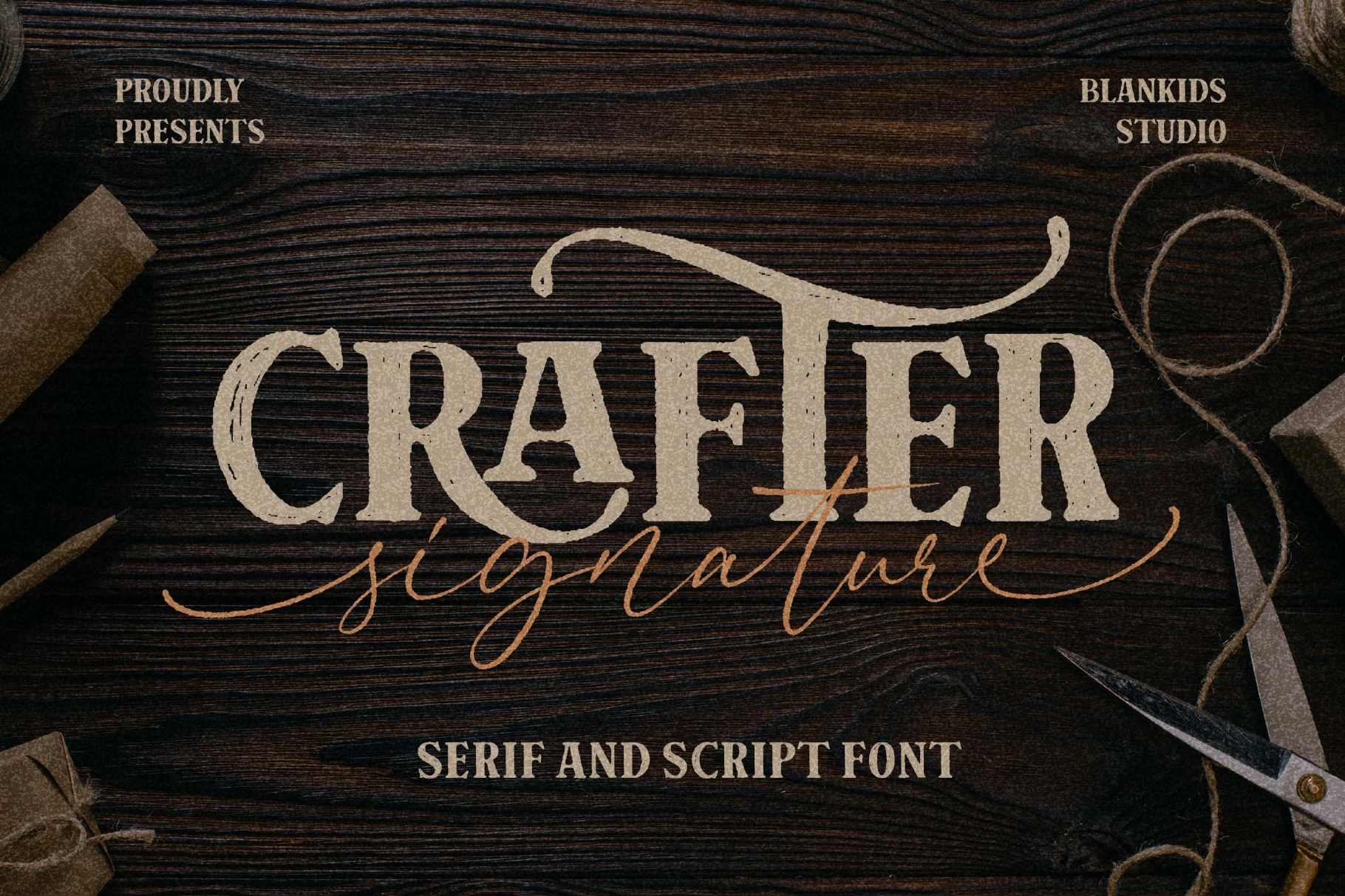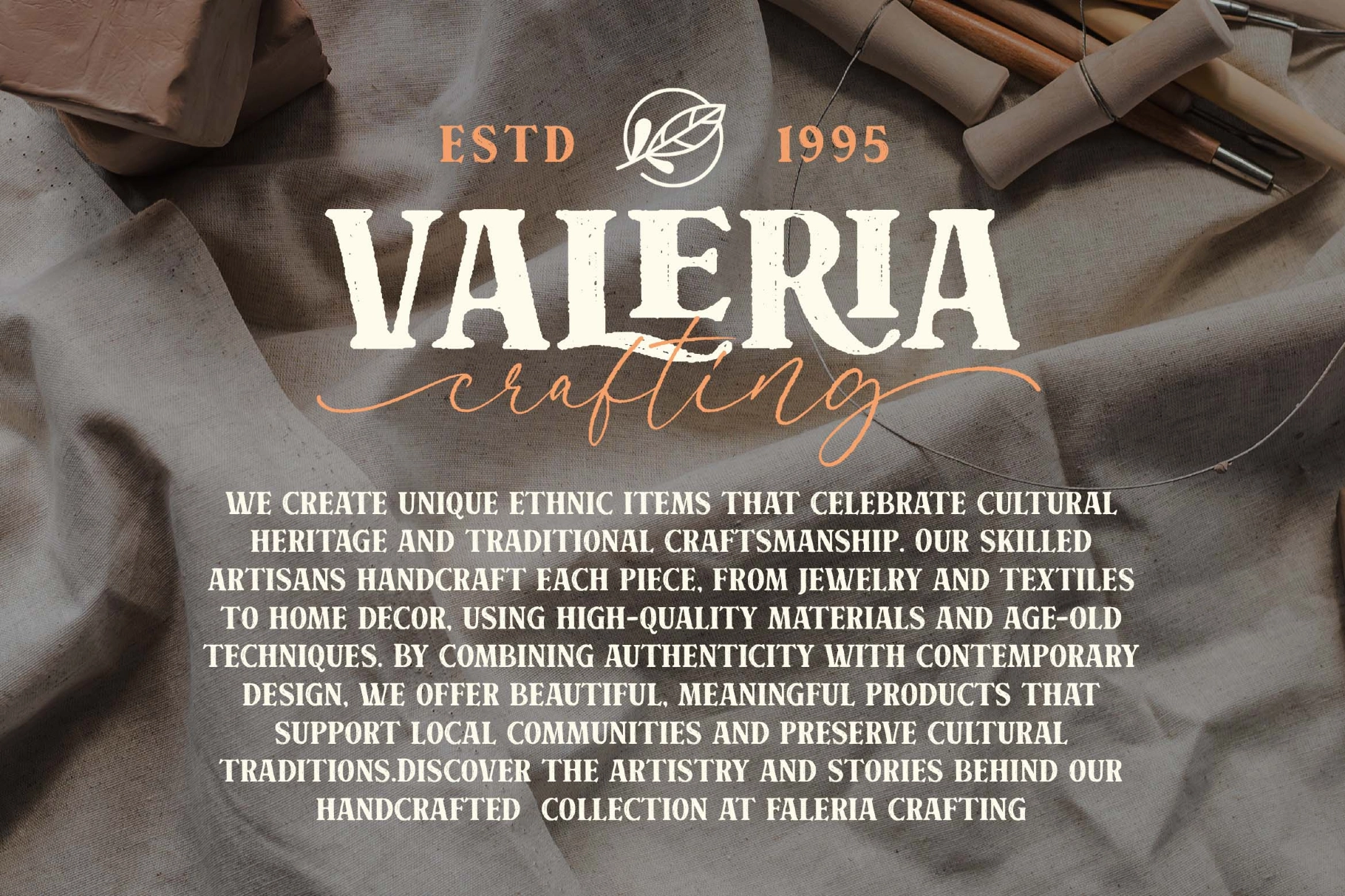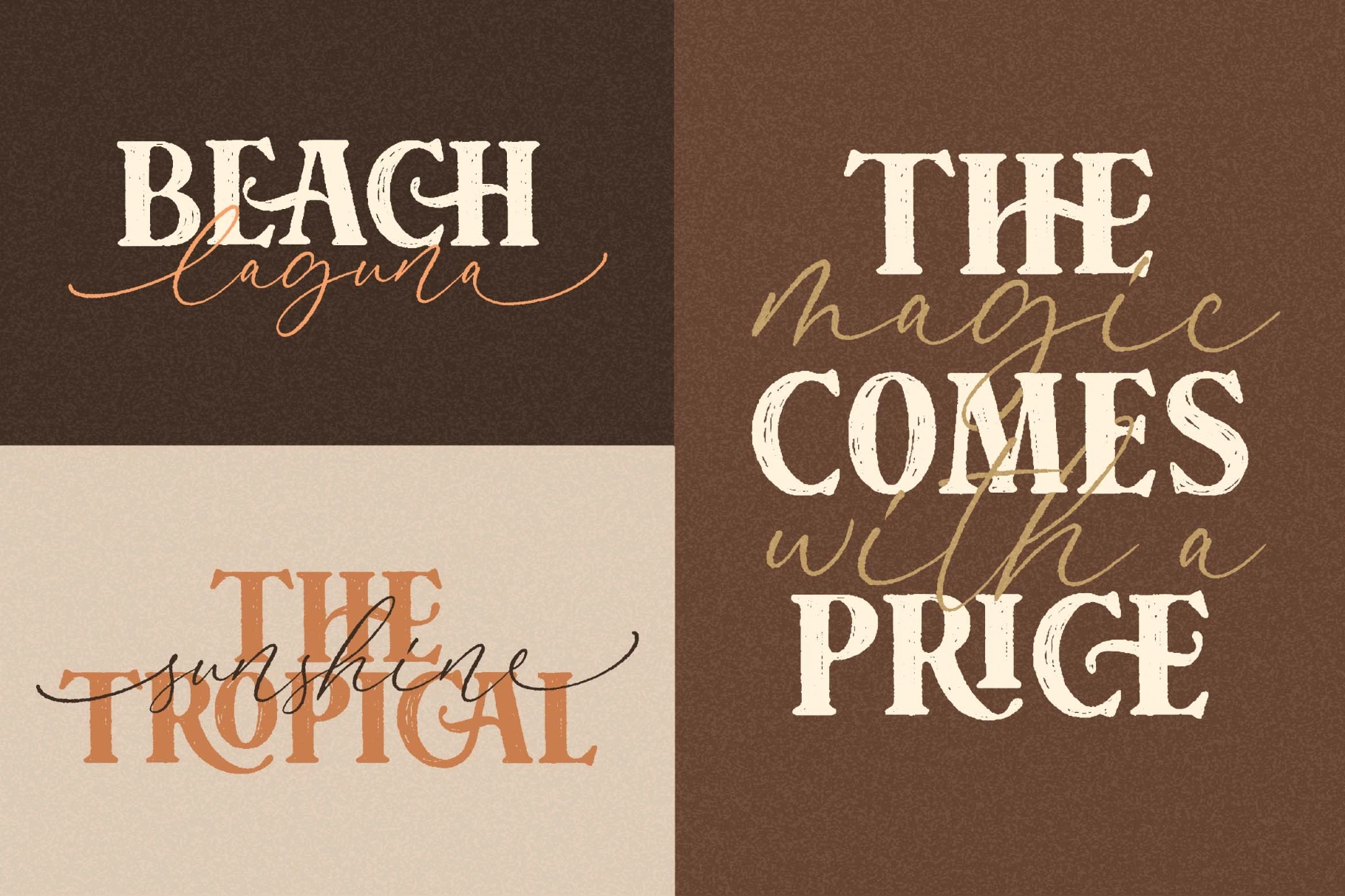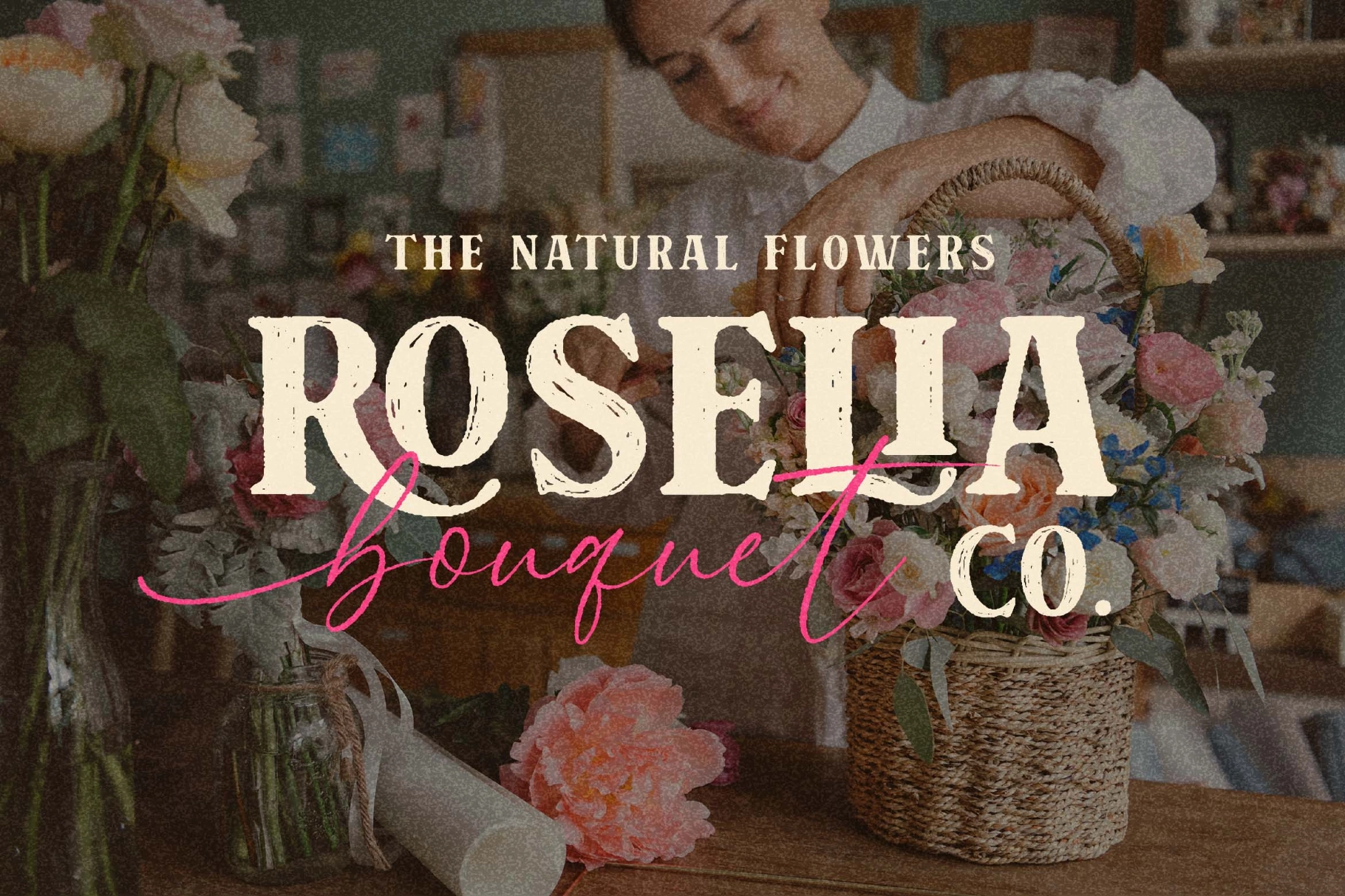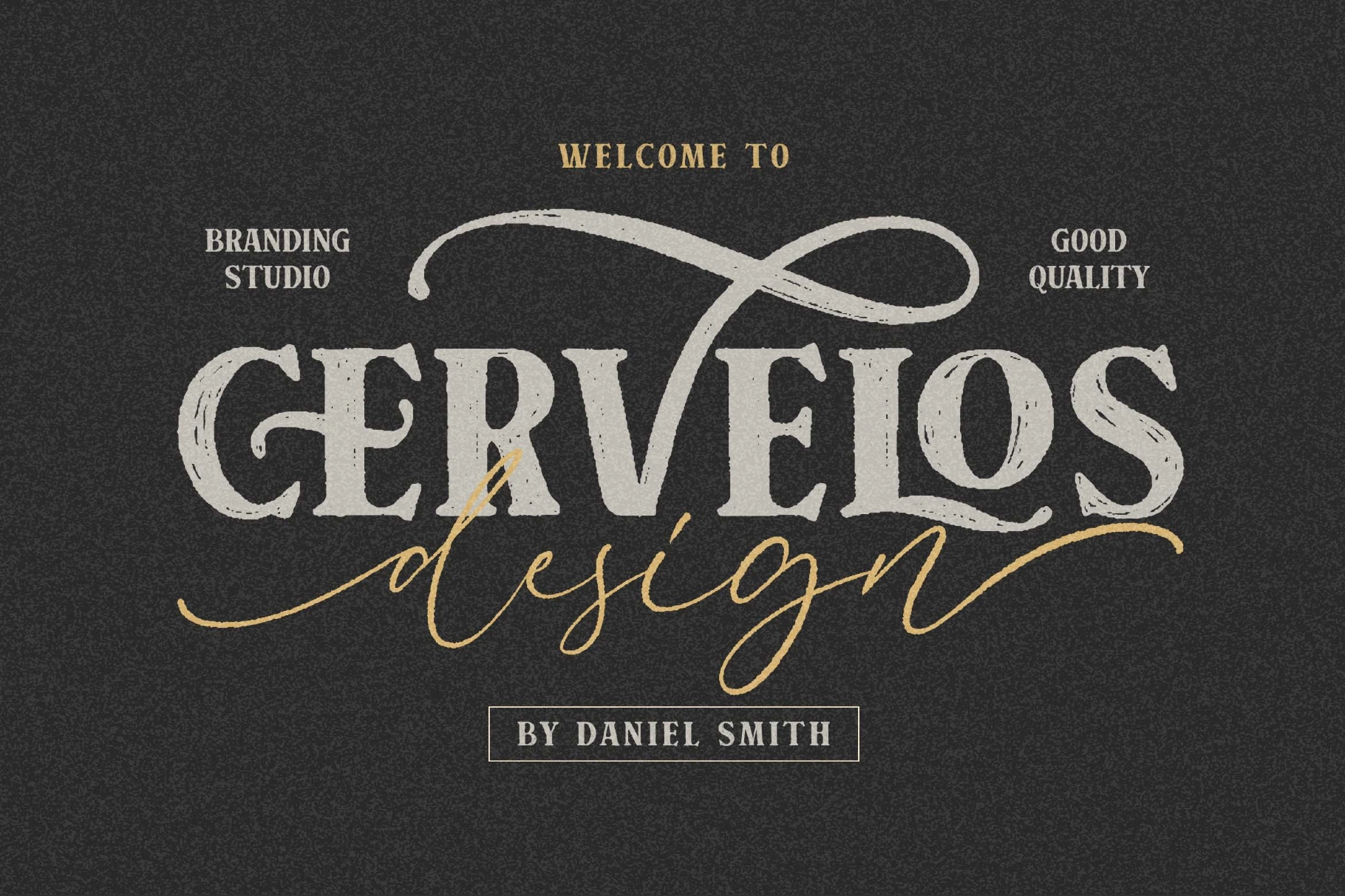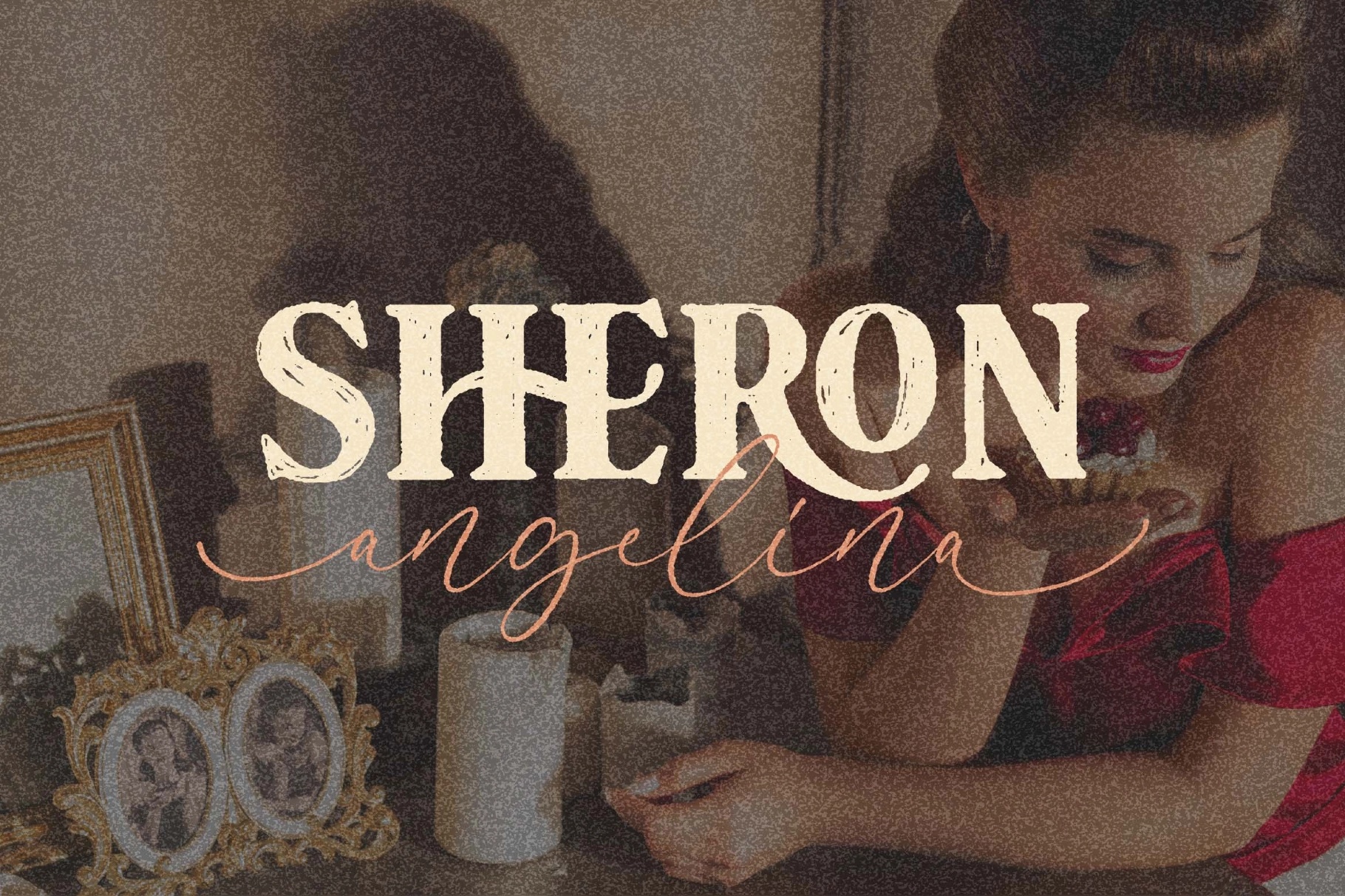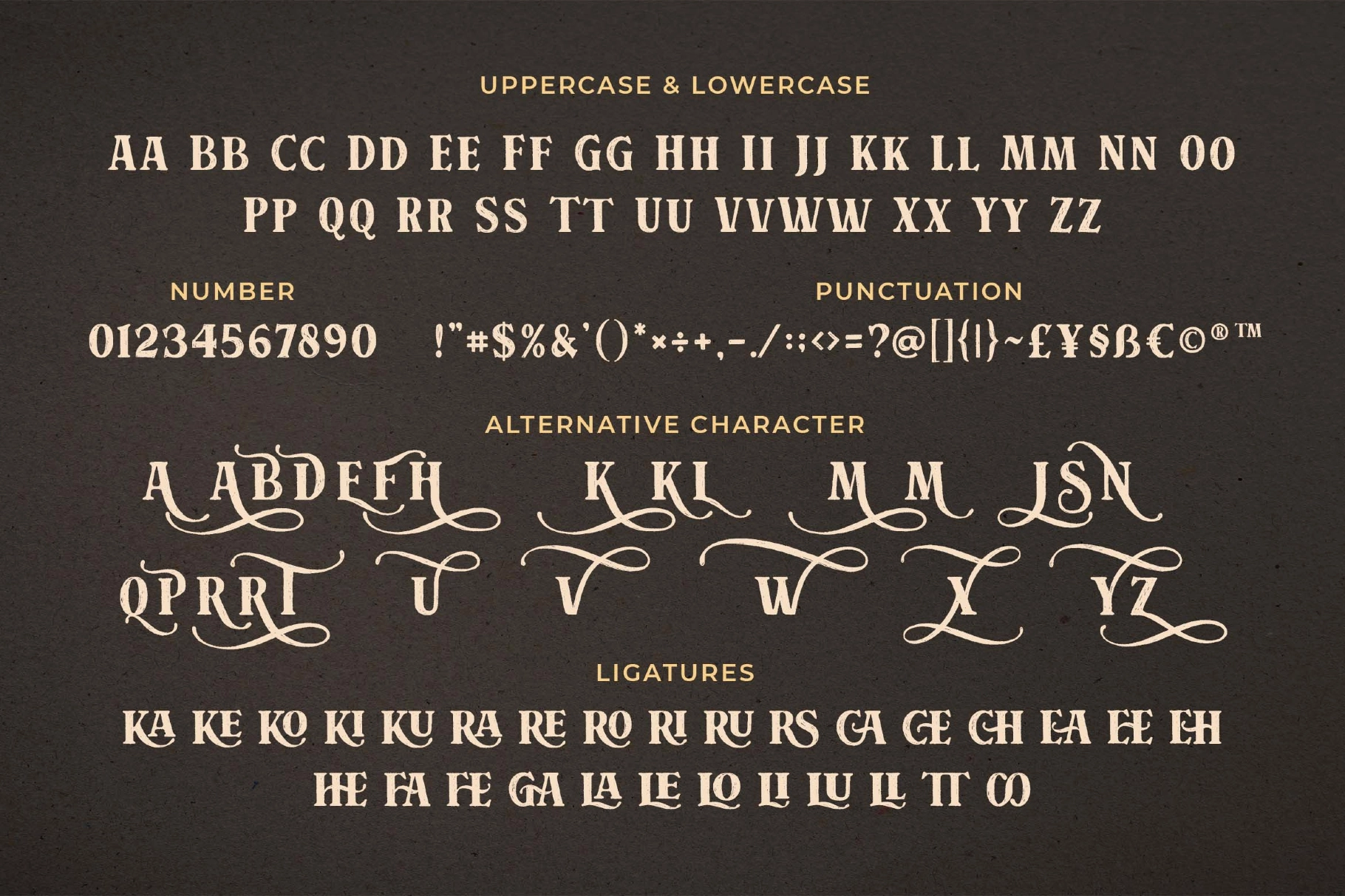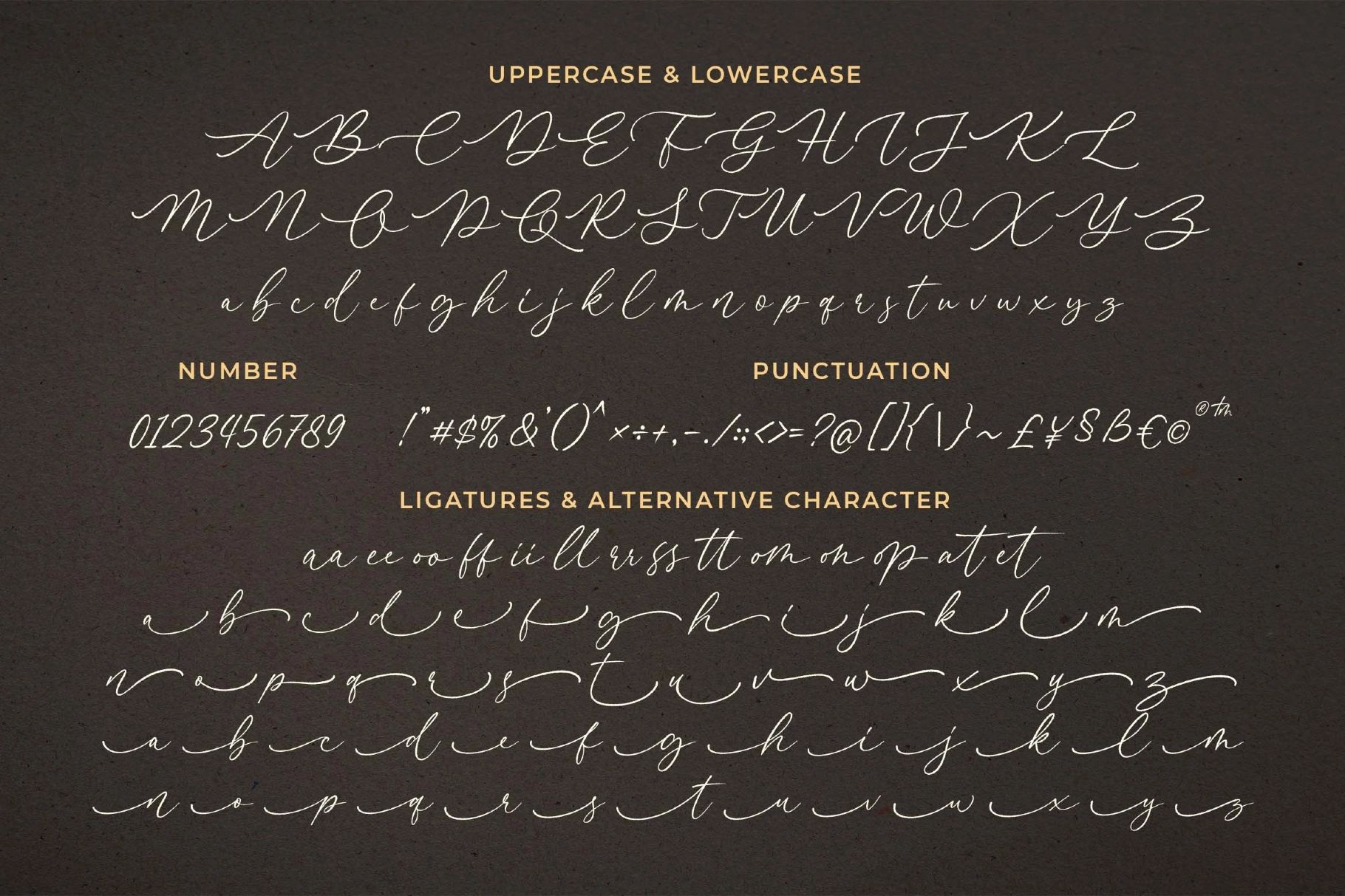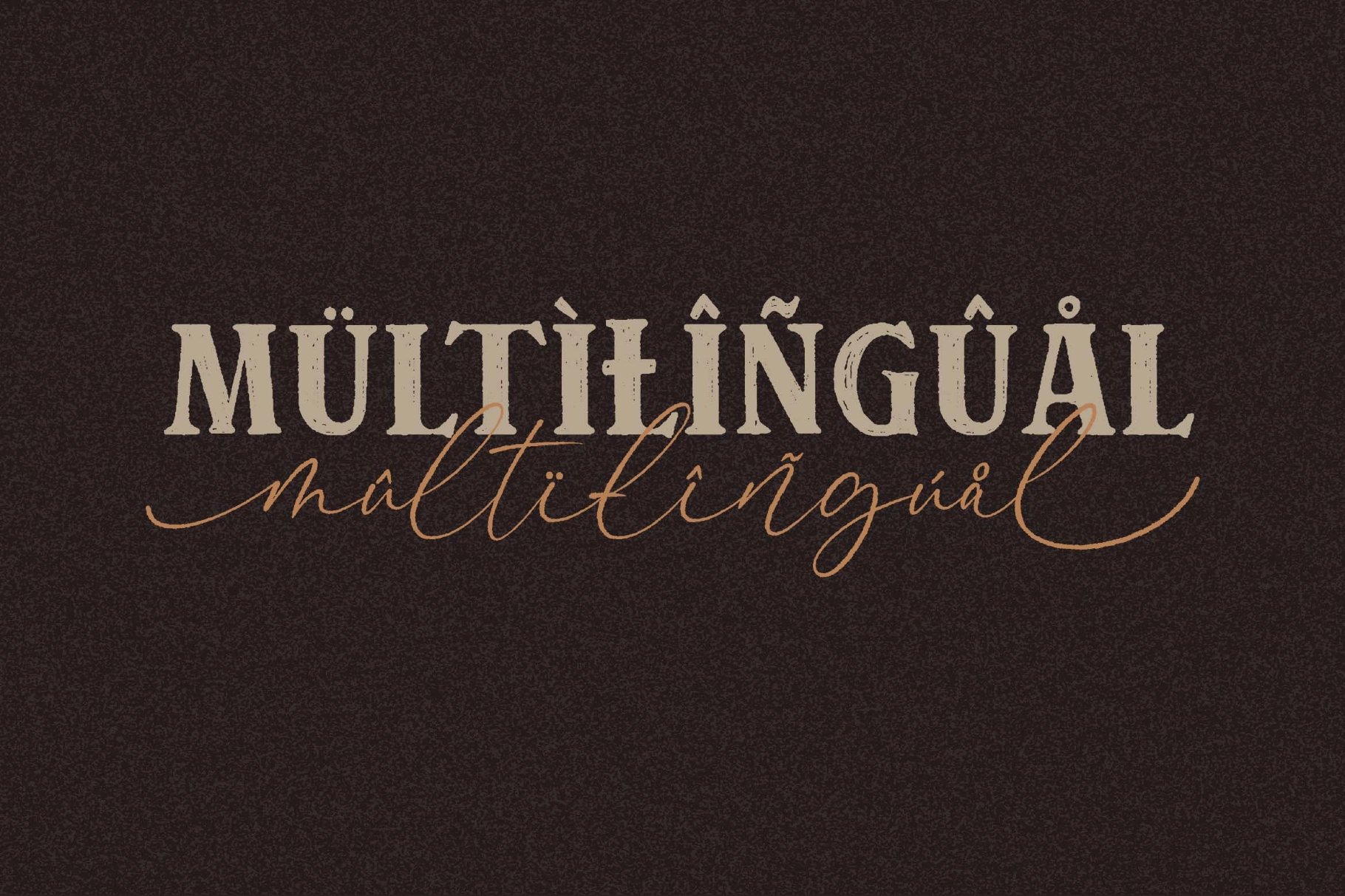
Crafter Signature a Font Combination
Introducing Crafter Signature, a distinctive font that seamlessly combines the timeless appeal of serif with the expressive charm of script handwriting. Crafted with meticulous attention to detail, this font boasts a natural, rough texture that adds an authentic and organic touch to your designs. Born from hand-drawn sketches and transformed into a versatile typeface, Crafter Signature brings a unique, personal flair to every project.
Whether you’re designing a logo, creating eye-catching packaging, or crafting a compelling poster, Crafter Signature is the ideal choice to elevate your product. Its harmonious blend of structured serifs and fluid script elements makes it a versatile tool for a wide range of applications, ensuring your work stands out with sophistication and creativity.